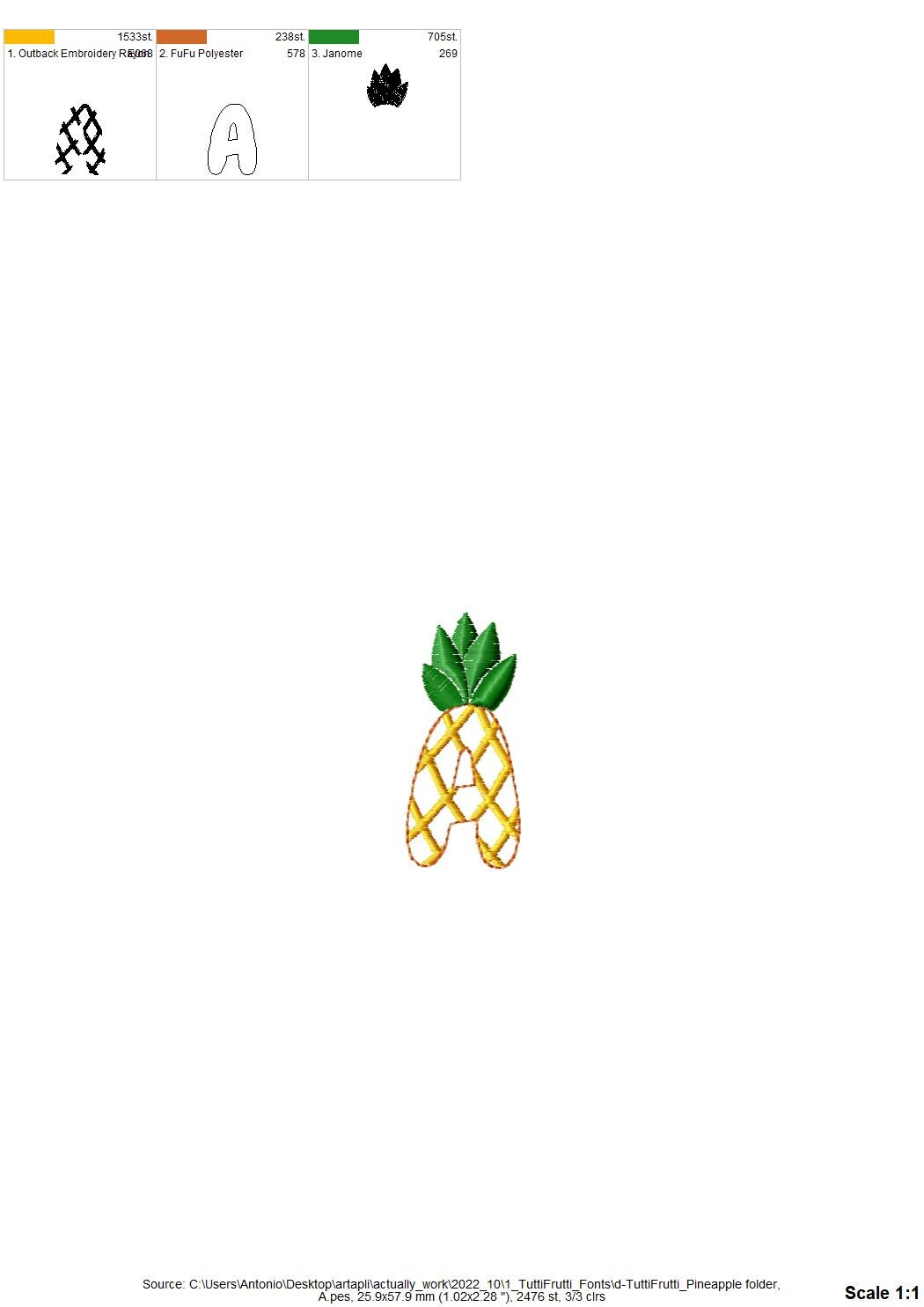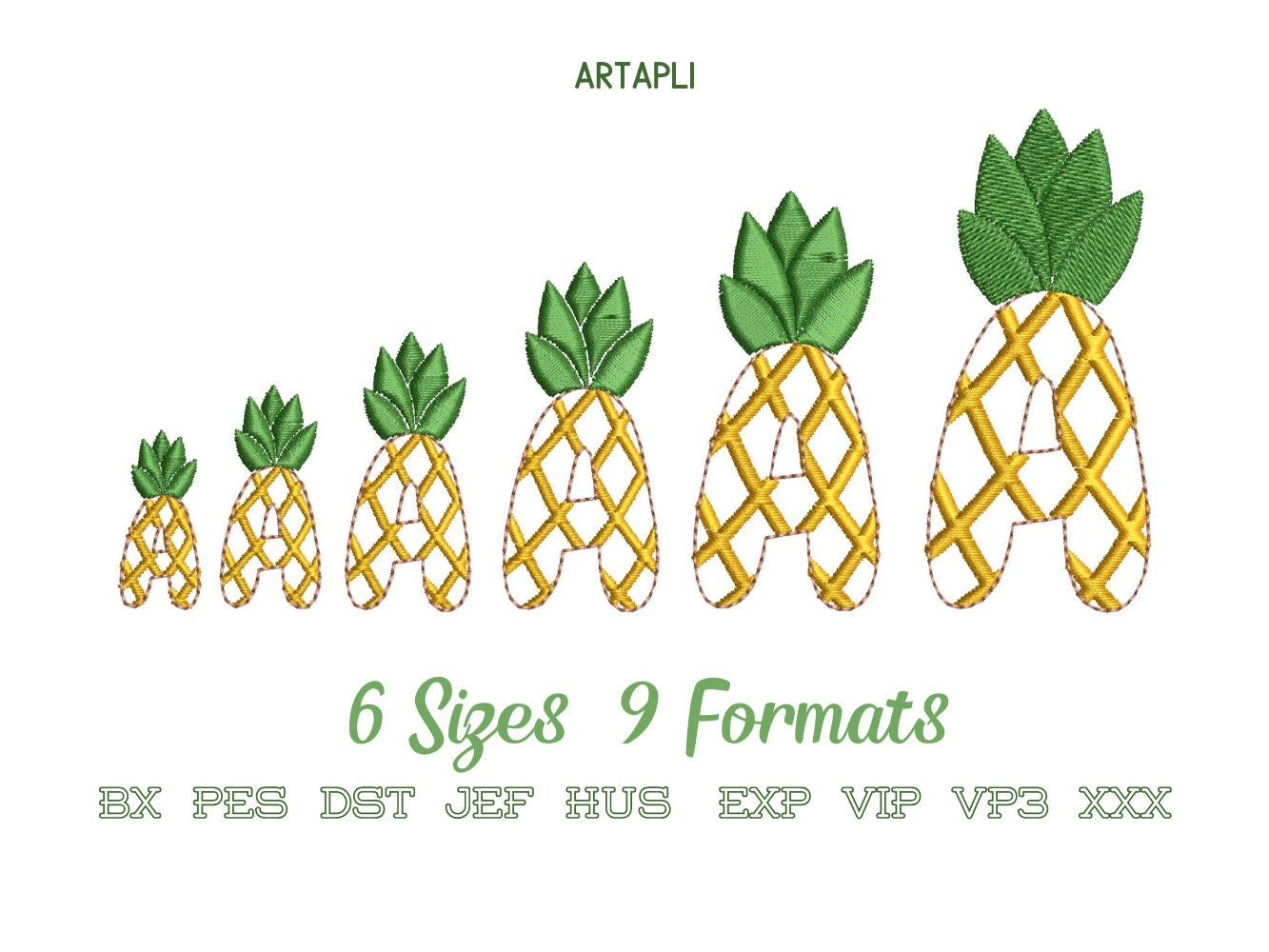
Tutti Frutti Pineapple fruit FONT machine embroidery designs in assorted sizes funny alphabet letters A-Z kids name monogram, BX included
Whole alphabet A-Z capital letters.